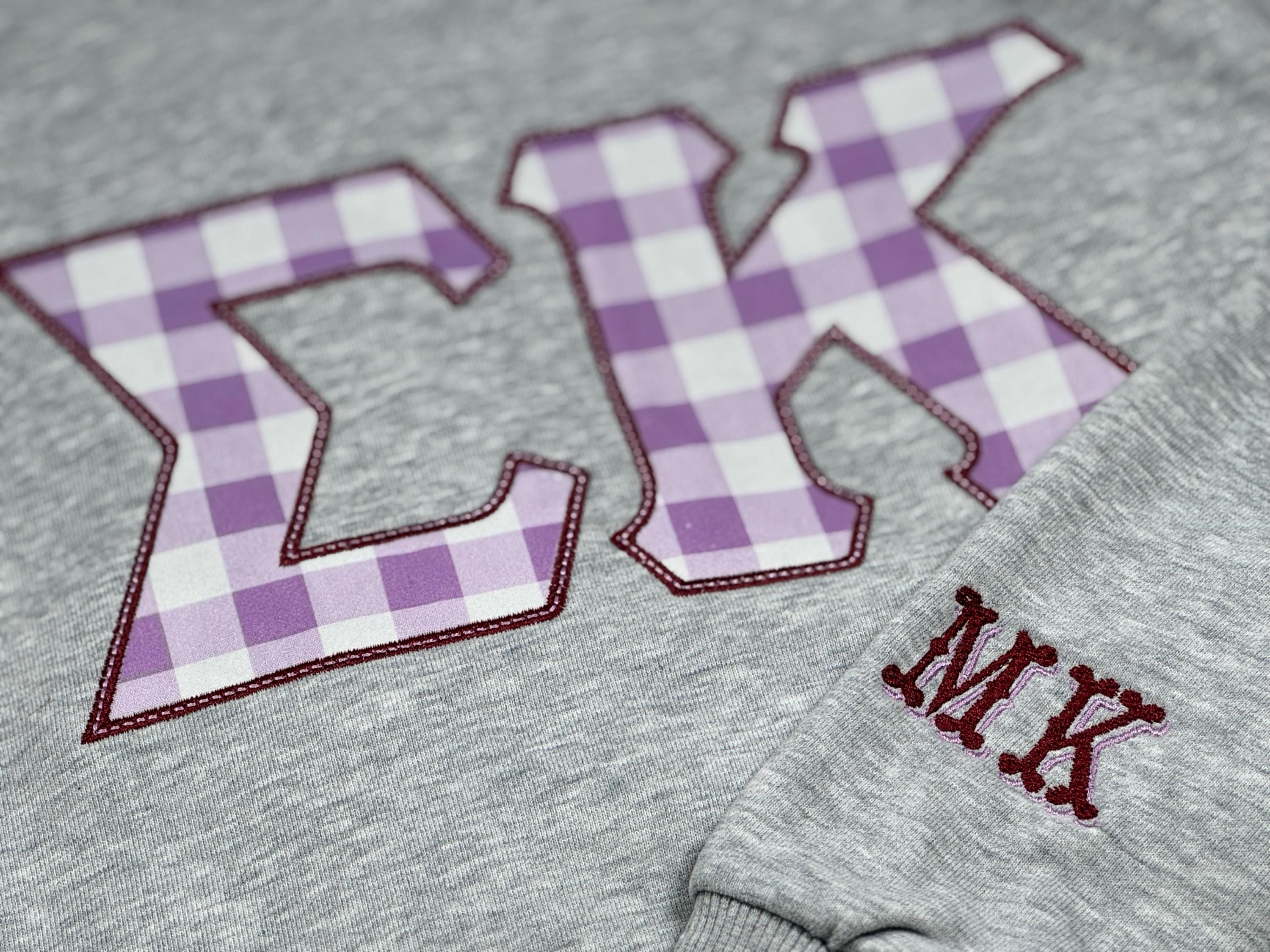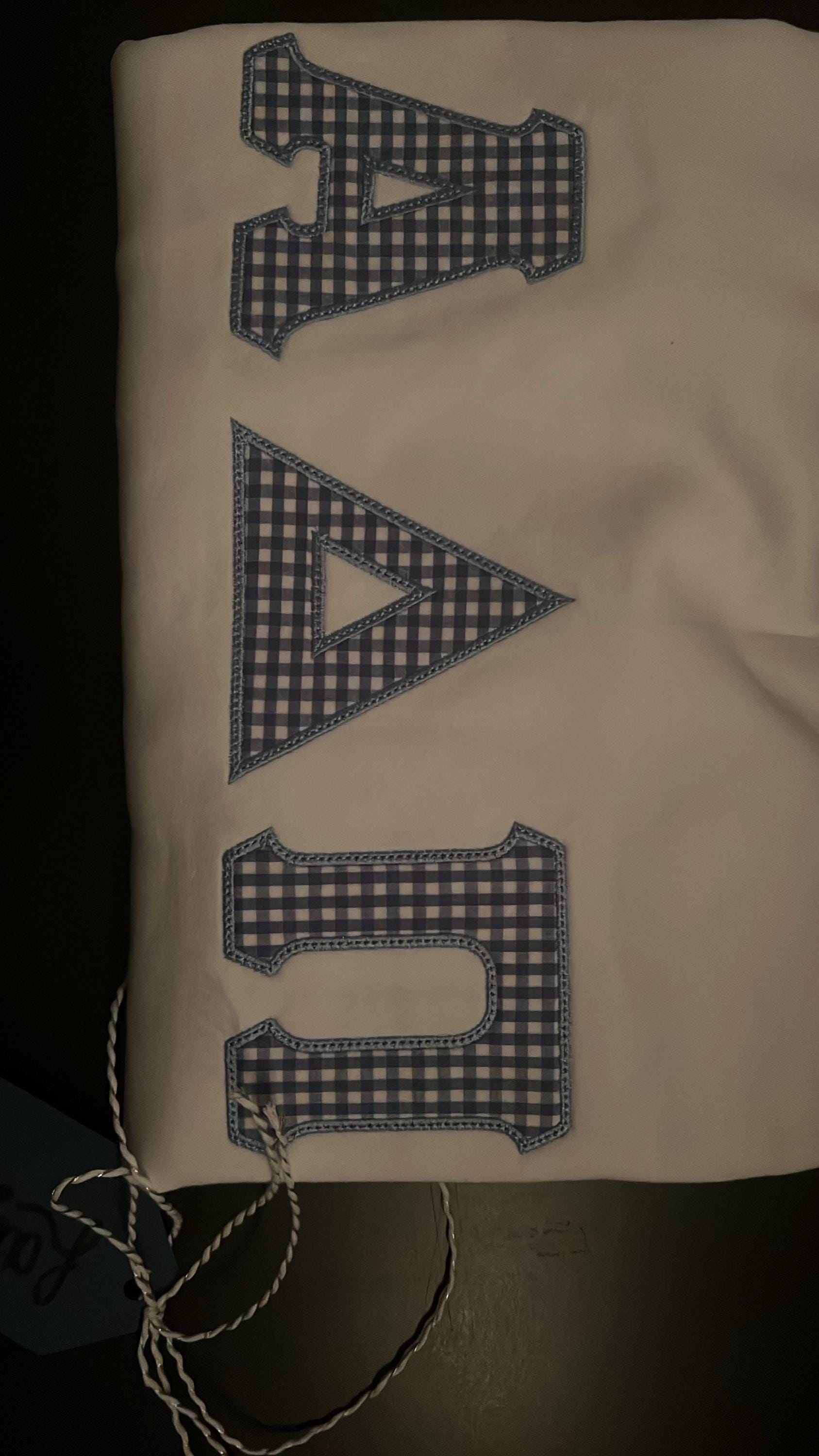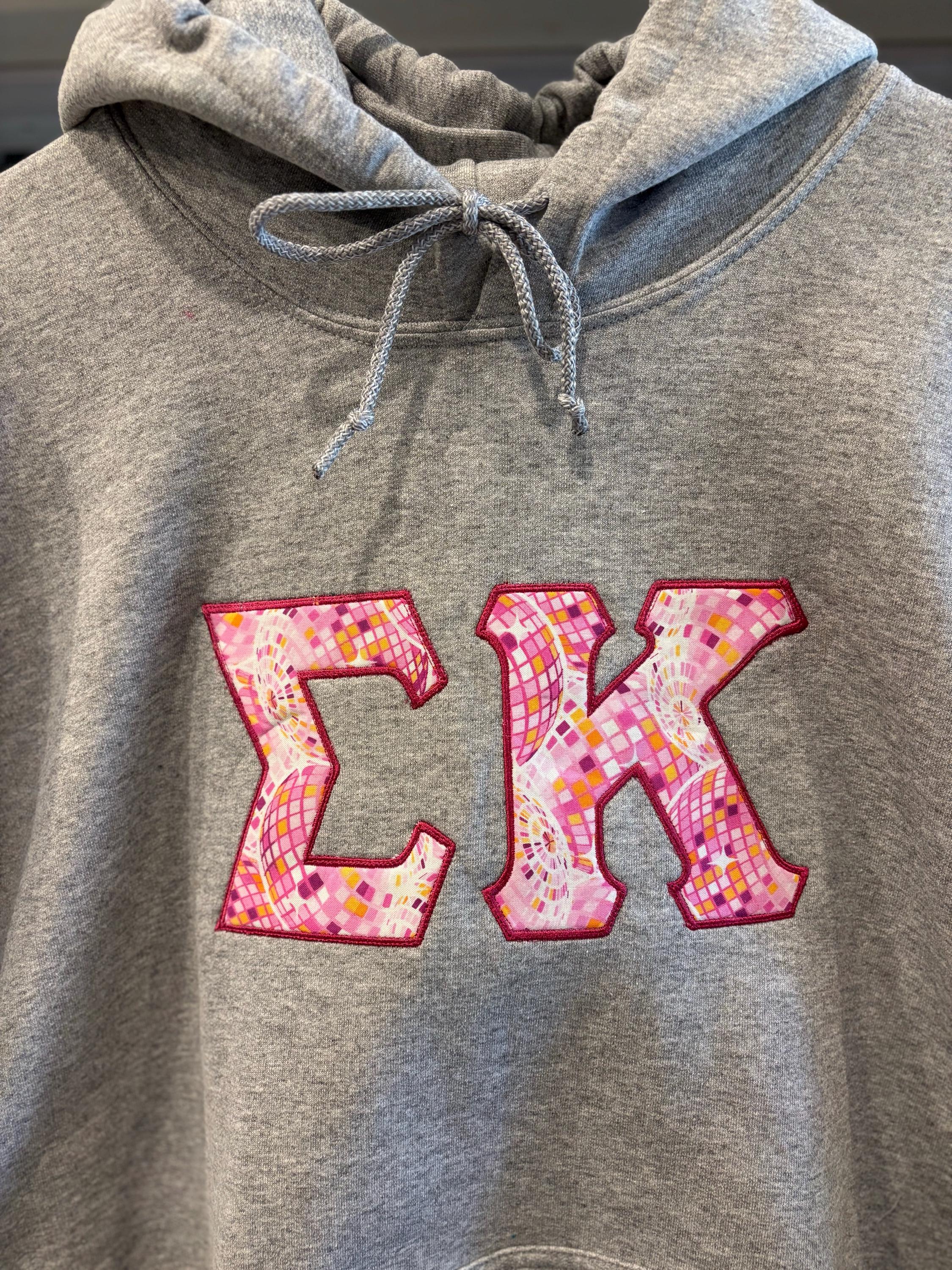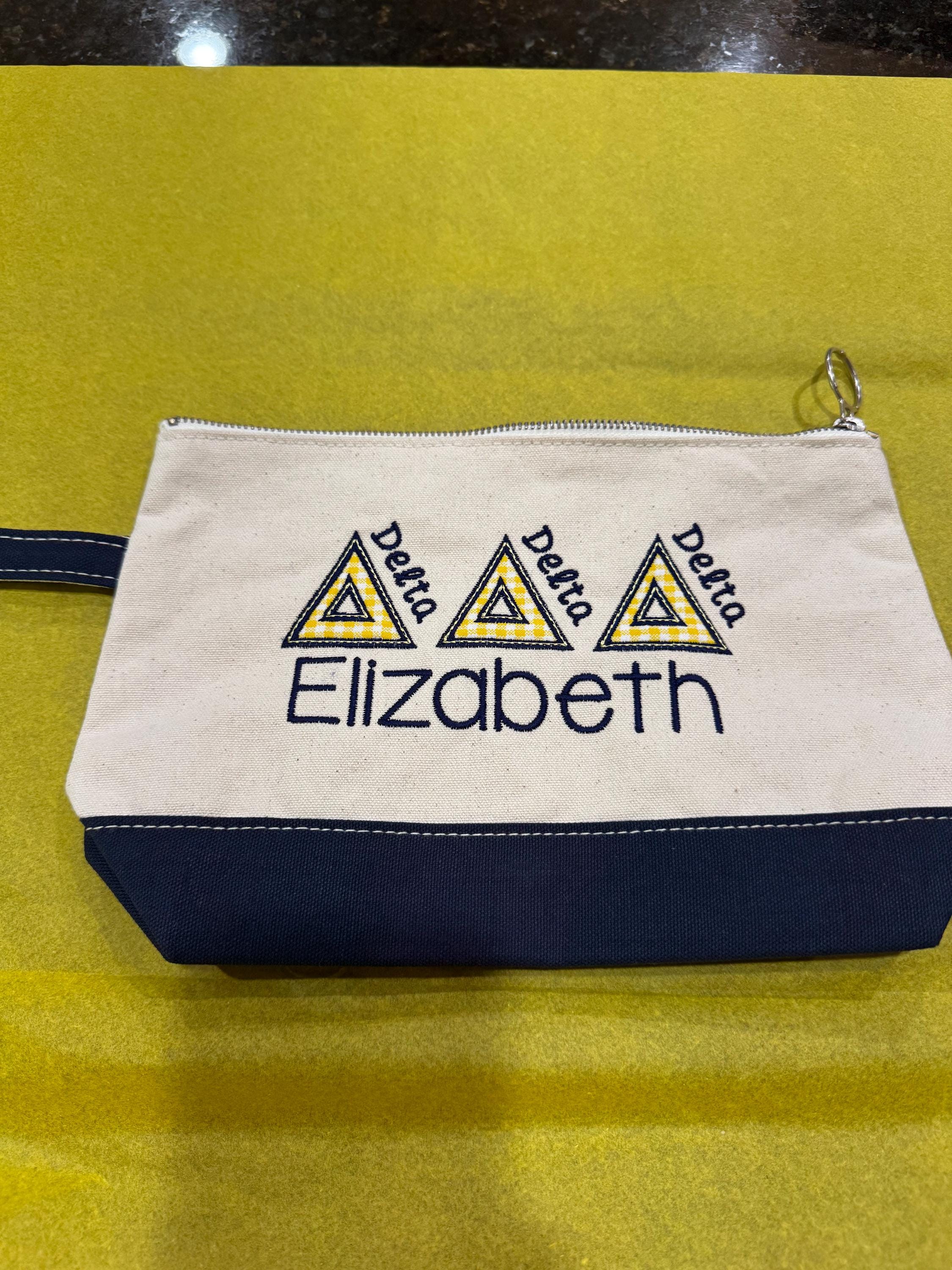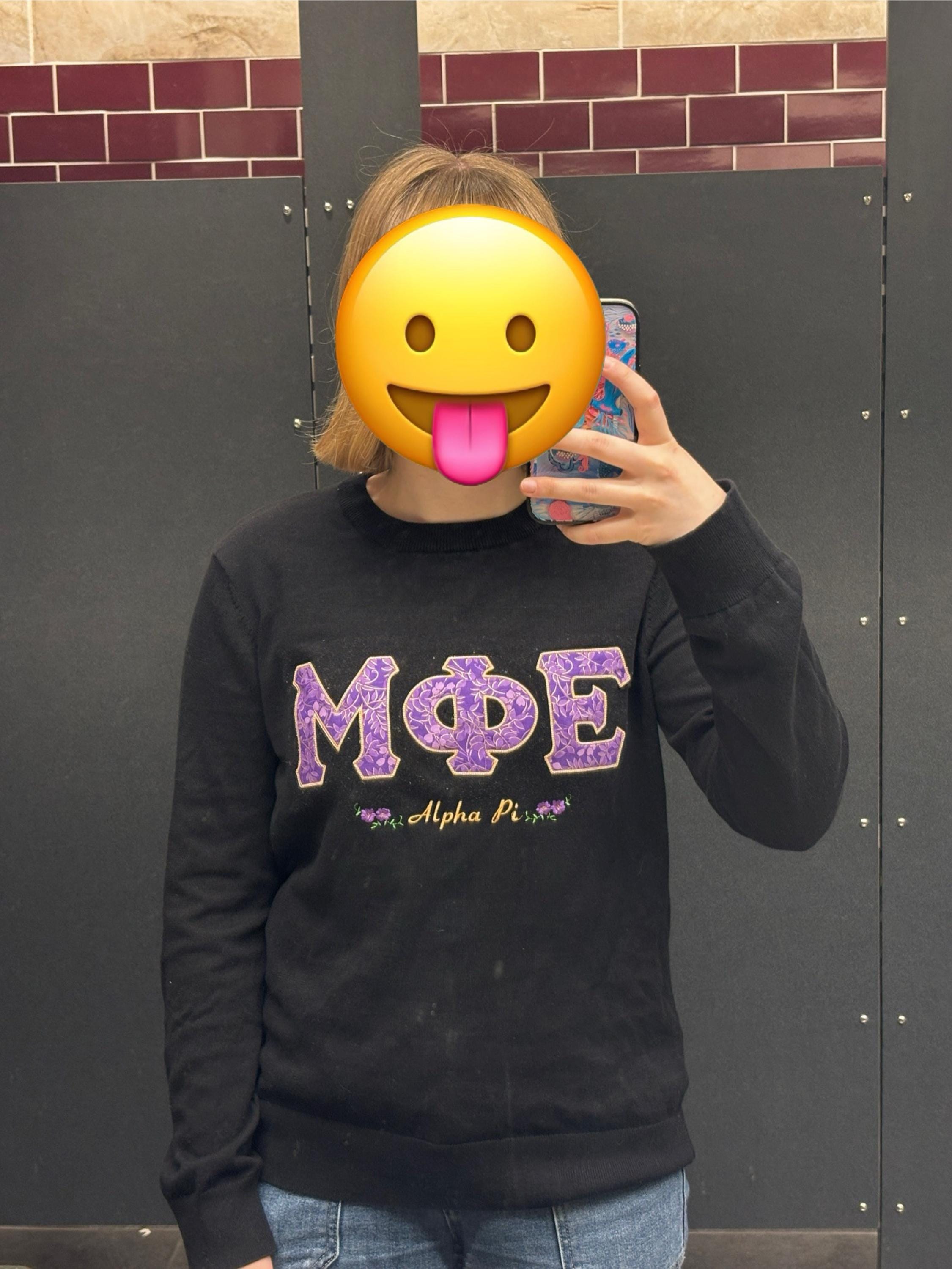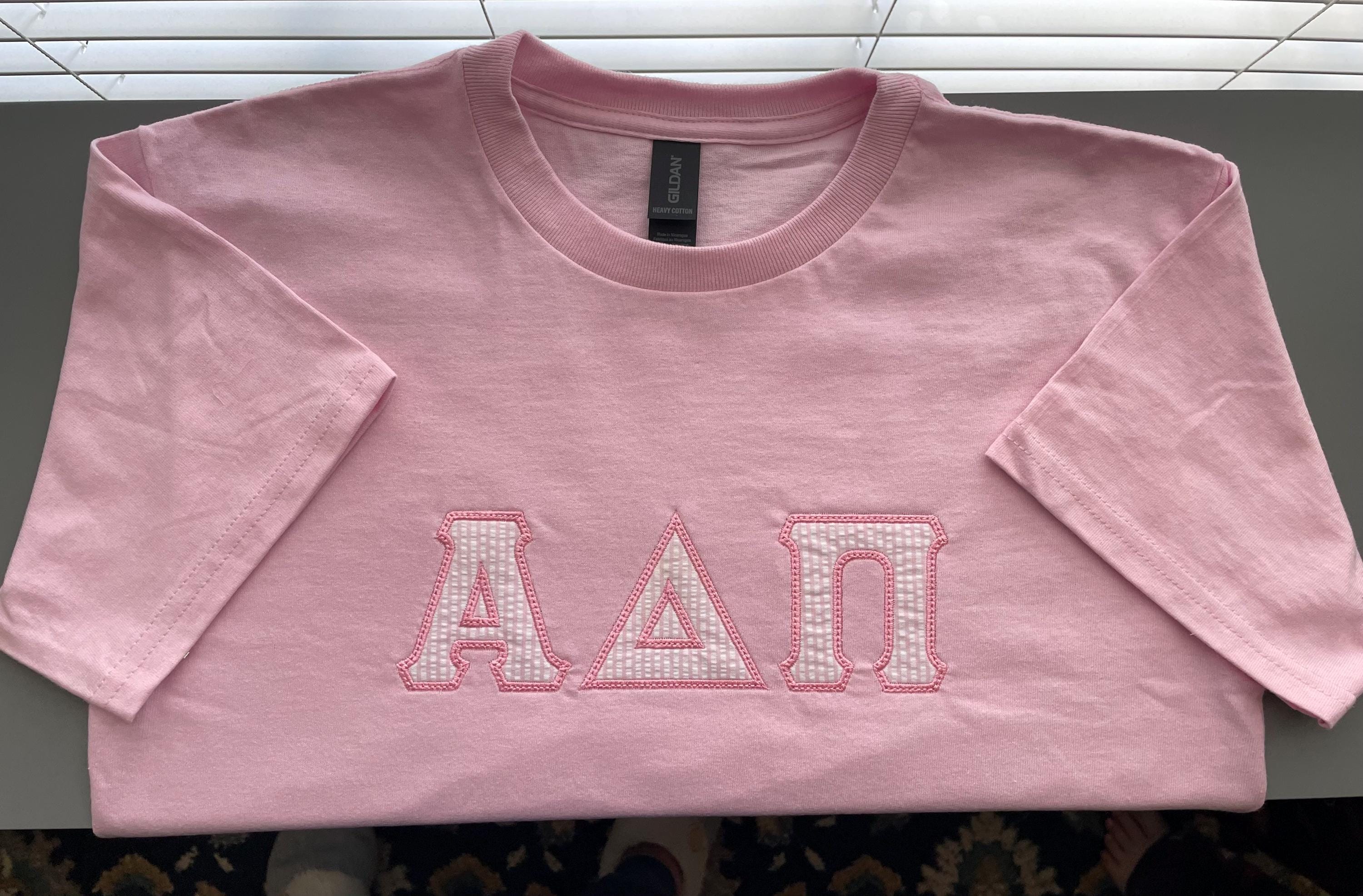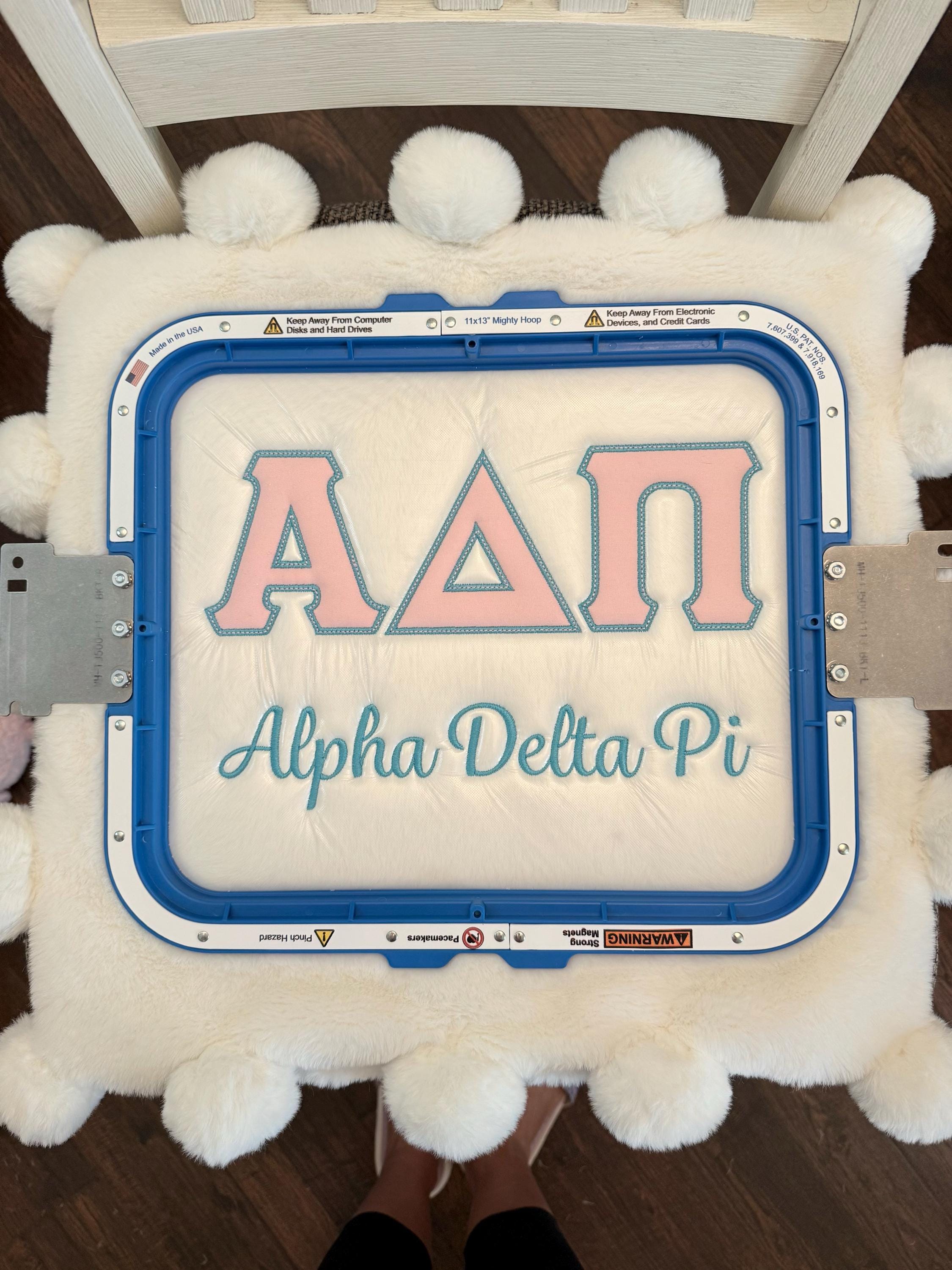
Fraternities and sororities Greek simple applique font with contrast outline (mini font machine embroidery designs)
Applique letters with classic satin stitch and neat top stitch to secure the applique satin stitch in the wash!
Great appliqué design. Stitched out well on a light weight T shirt. I will be using this design on other fabric types as well.
stitches out perfectly! highly reccomend!